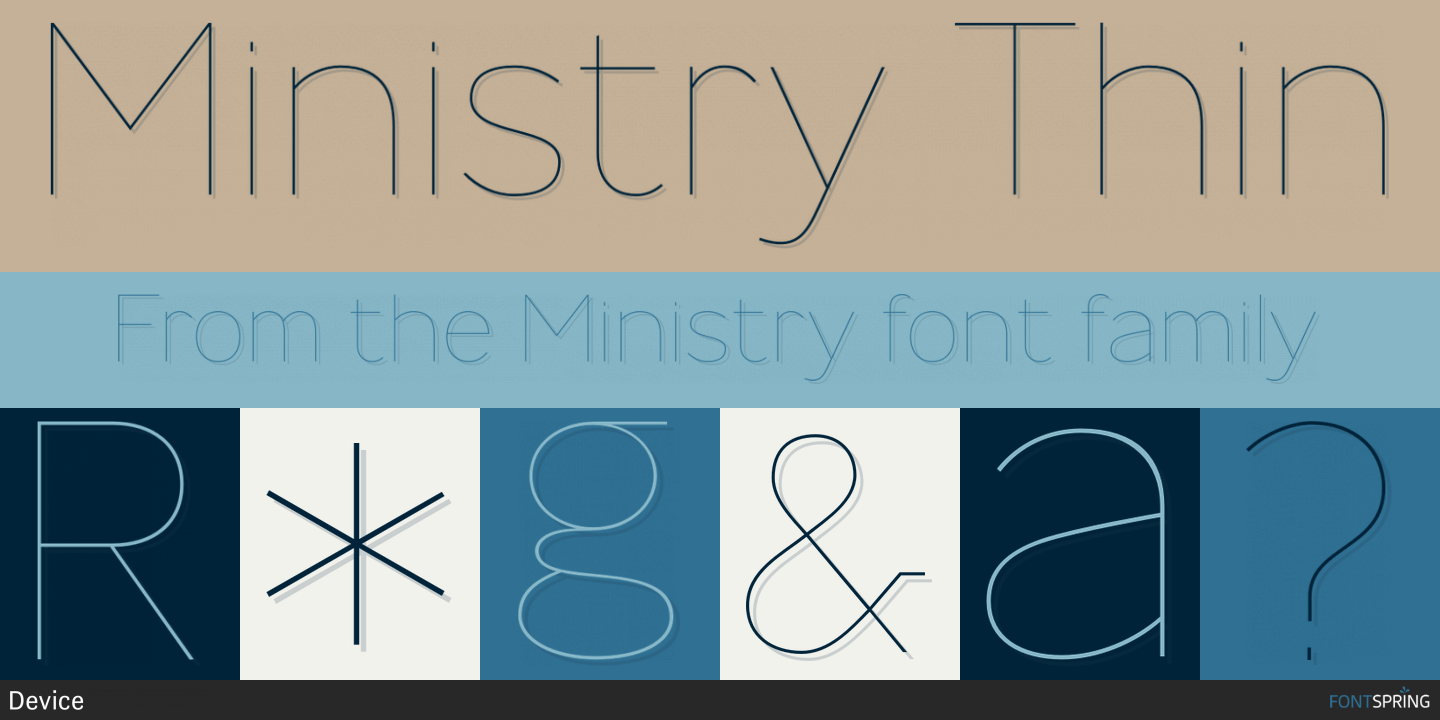
Ministry Font Free . Web explore ministry designed by rian hughes at adobe fonts. Web minster by paul lloyd.
Ministry Font Free - Web minster by paul lloyd. You can visit my website to purchase. A sans serif typeface with 14 styles, available from adobe fonts for sync. A great choice for highlighting your design elements. Web explore ministry designed by rian hughes at adobe fonts.
Ministry Font Free - Web free for personal use. Discover a world of captivating typography for your creative projects. A sans serif typeface with 14 styles, available from adobe fonts for sync. Web ministry is an elegant and modern free font best suitable for headlines and posters. Purchases will be sent to your paypal email within 24 hours.
Ministry Font Free - A sans serif typeface with 14 styles, available from adobe fonts for sync. I came across a few collections that i thought would be fun to share: A great choice for highlighting your design elements. Designed and released by victor tognollo. Web ministry font free download.
Ministry Font Free - Web minster by paul lloyd. Designed and released by victor tognollo. You can visit my website to purchase. Discover a world of captivating typography for your creative projects. Web explore ministry fonts at myfonts.
Ministry Font Free - I came across a few collections that i thought would be fun to share: Web explore ministry designed by rian hughes at adobe fonts. Web minster by paul lloyd. Discover a world of captivating typography for your creative projects. Web ministry font free download.
Ministry Font Free - You can visit my website to purchase. Web minster by paul lloyd. I came across a few collections that i thought would be fun to share: Web i was working on a project recently and decided i really needed to find some new fonts for it. A sans serif typeface with 14 styles, available from adobe fonts for sync.
Ministry Font Free - Web explore ministry designed by rian hughes at adobe fonts. Web free for personal use. Web explore ministry fonts at myfonts. Purchases will be sent to your paypal email within 24 hours. I came across a few collections that i thought would be fun to share:
Ministry Font Free - You can visit my website to purchase. Purchases will be sent to your paypal email within 24 hours. A sans serif typeface with 14 styles, available from adobe fonts for sync. Web minster by paul lloyd. Web ministry is an elegant and modern free font best suitable for headlines and posters.
Ministry Font Free - Purchases will be sent to your paypal email within 24 hours. A great choice for highlighting your design elements. Web i was working on a project recently and decided i really needed to find some new fonts for it. I came across a few collections that i thought would be fun to share: A sans serif typeface with 14 styles,.
Ministry Font Free - Discover a world of captivating typography for your creative projects. Web free for personal use. Web i was working on a project recently and decided i really needed to find some new fonts for it. You can visit my website to purchase. A sans serif typeface with 14 styles, available from adobe fonts for sync.
Ministry Font Free - See how to download ministry for. A sans serif typeface with 14 styles, available from adobe fonts for sync. You can visit my website to purchase. Web explore ministry designed by rian hughes at adobe fonts. I came across a few collections that i thought would be fun to share:
Ministry Font Free - Designed and released by victor tognollo. Web ministry is an elegant and modern free font best suitable for headlines and posters. Web minster by paul lloyd. See how to download ministry for. Web explore ministry designed by rian hughes at adobe fonts.
Ministry Font Free - Web free for personal use. Web minster by paul lloyd. A great choice for highlighting your design elements. Web ministry font free download. Web explore ministry designed by rian hughes at adobe fonts.
Ministry Font Free - Web minster by paul lloyd. Web download ministry script font free! I came across a few collections that i thought would be fun to share: Web explore ministry designed by rian hughes at adobe fonts. Designed and released by victor tognollo.
Ministry Font Free - See how to download ministry for. Web download ministry script font free! Web minster by paul lloyd. Web i was working on a project recently and decided i really needed to find some new fonts for it. Designed and released by victor tognollo.